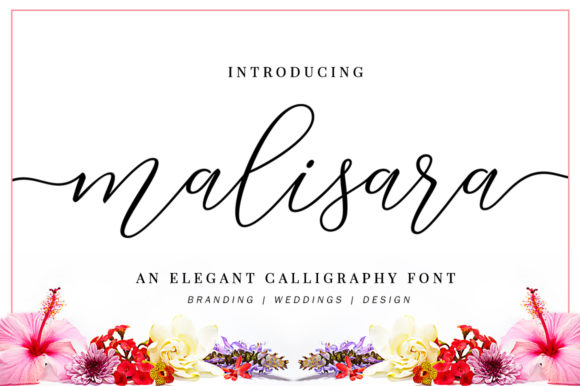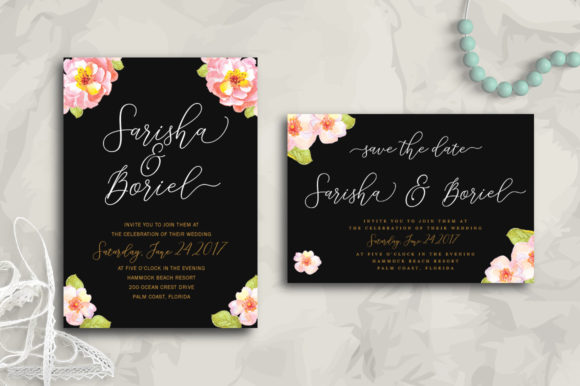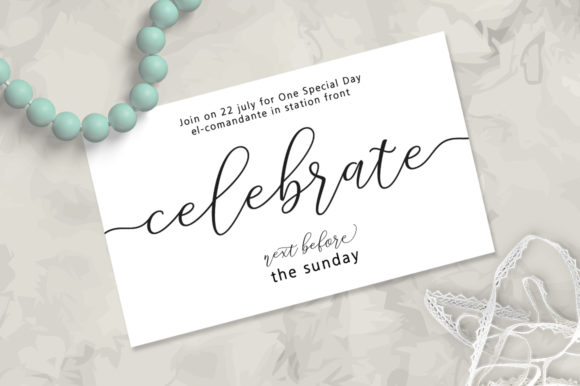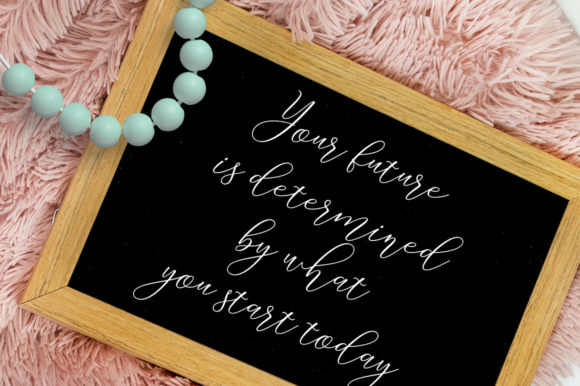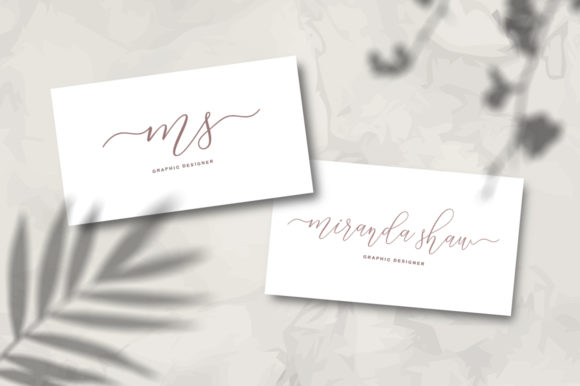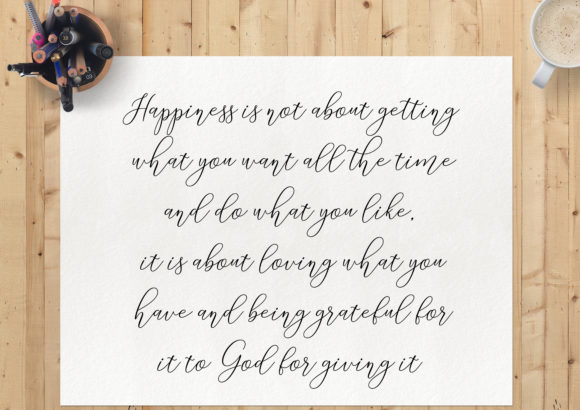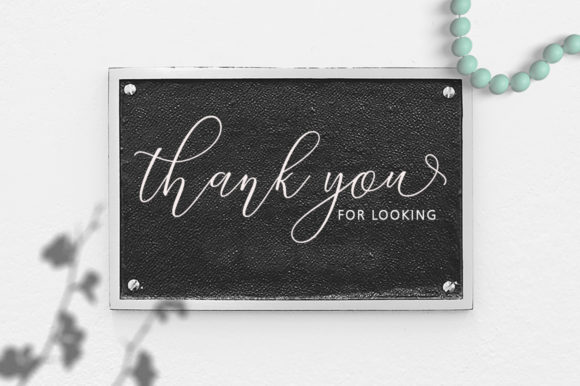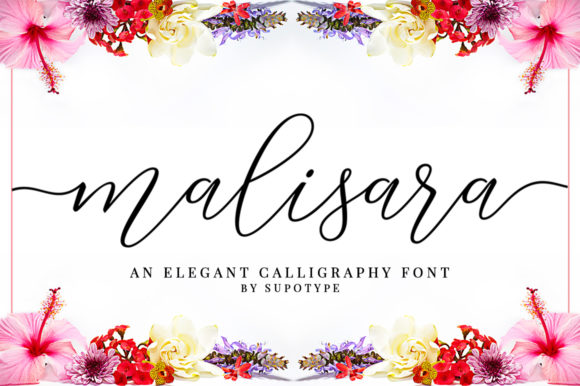
Malisara Script Font
About Malisara Script Font
Malisara is an elegant and charming handwritten font with a lovely feel. It will put a romantic twist on any creative idea.